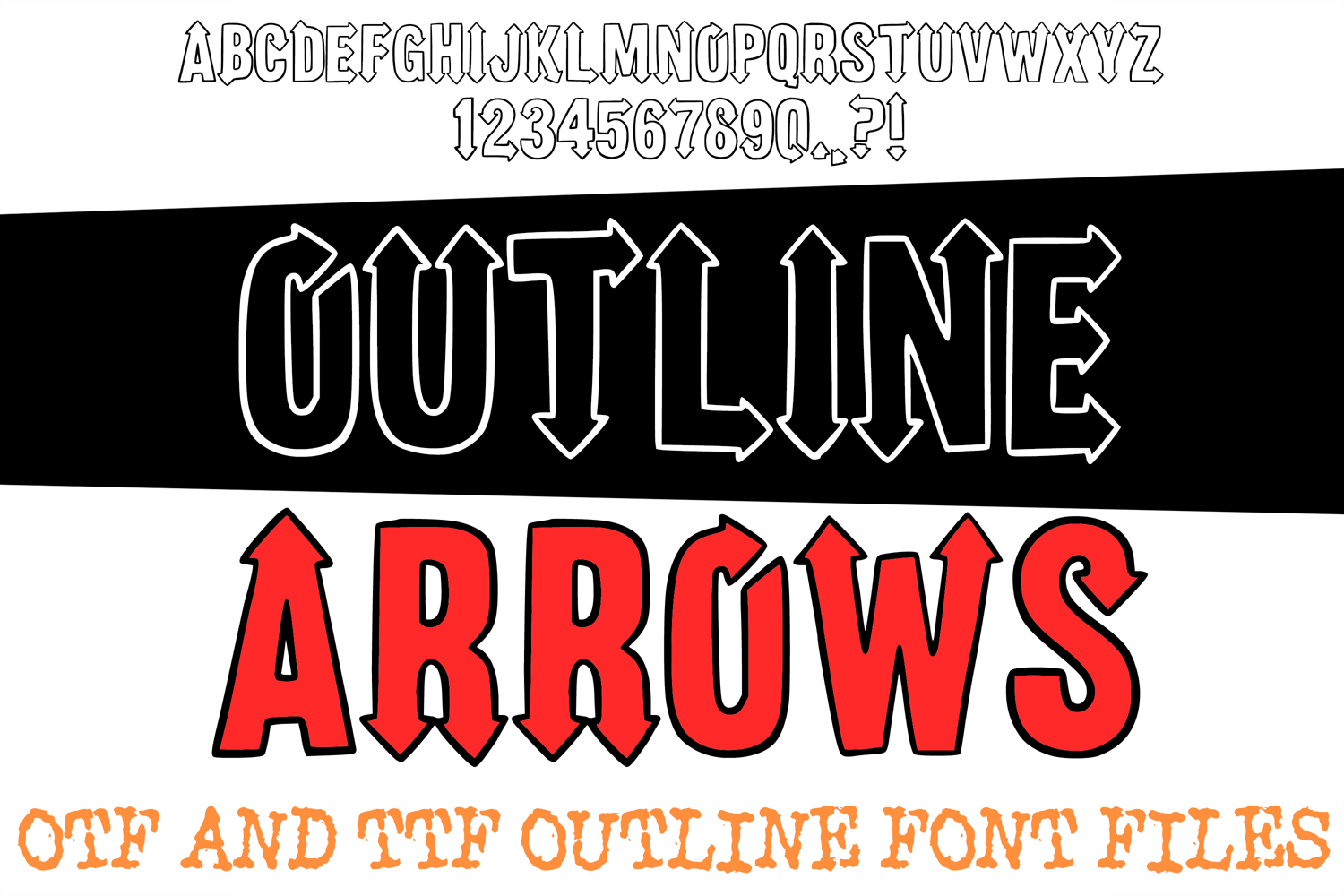
Outline Arrows ABC Font Typeface Alphabet OTF TTF
Bring a sharp, dynamic look to your creative layouts with Outline Arrows, an installable display font featuring bold, hollowed-out letterforms accented with crisp arrow terminals. Combining a clean line-art aesthetic with energetic directional arrows, this versatile typeface gives you the freedom to keep it transparent or fill it with custom colors for high-impact artwork.
Ideal For:
Apparel & Merchandise: Streetwear t-shirts, athletic jerseys, team hoodies, and accessories.
Crafts & Vinyl Projects: Decals, stencil designs, craft machine cutouts, and print-on-demand layouts.
Graphic Design & Branding: Event posters, bold headlines, sticker packs, social media banners, and logo accents.
Signage & Party Decor: Directional signage, party banners, sports event decor, and promotional flyers.